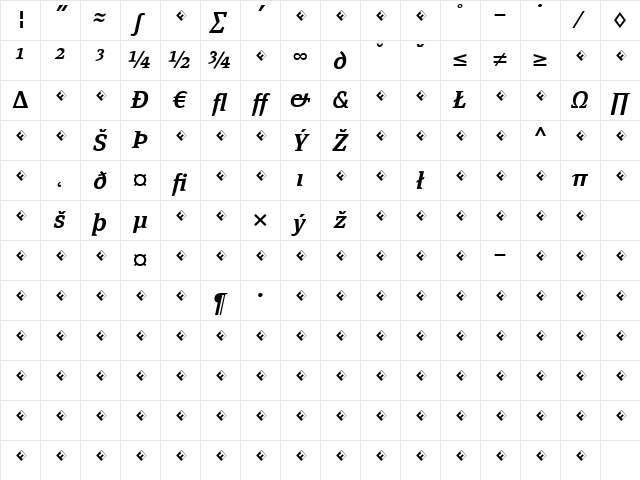
PageSerif-DemiBoldItalicExp carries the refined structure of traditional serif typography, with bracketed terminals and considered proportions that communicate credibility and craft. The slanted form adds forward momentum and visual energy. Its bold stroke weight gives it real presence on the page.
Pro Tip: Use PageSerif-DemiBoldItalicExp for editorial body copy and considered headline work. Pair with a neutral sans for UI elements or captions to create a classic hierarchy.
Who designed the PageSerif-DemiBoldItalicExp Regular font?
This font was published by Albert Boton, published by FontShop International for the FontFont Library. Check the technical specs section for copyright and designer details.